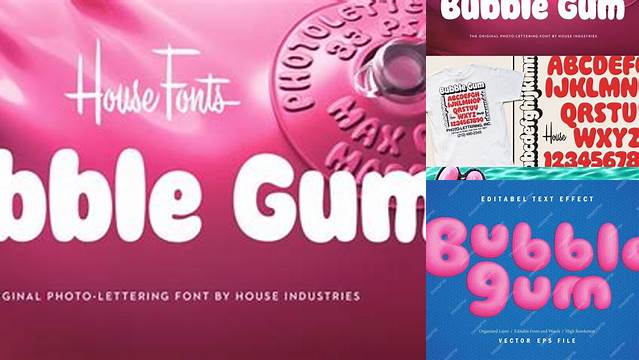
Hey guys! Ever stumbled upon a font that just screams fun and nostalgia? Well, let me introduce you to the Plinc Bubble Gum font! It's like a time machine back to your childhood, filled with sugary sweetness and playful vibes. In this guide, we'll dive into everything you need to know about this awesome font, including where to snag it for free and how to use it in your projects. Let's get this show on the road!
What is Plinc Bubble Gum Regular Font?
The Plinc Bubble Gum Regular font is a typeface that brings a unique blend of playfulness and nostalgia to the world of typography. Designed to evoke the carefree spirit of childhood, this font is characterized by its rounded edges, soft curves, and an overall bubbly appearance, making it perfect for projects that aim to capture a lighthearted and whimsical feel. Its design elements draw inspiration from the classic bubble gum packaging and retro advertising, creating a visual experience that is both familiar and engaging. The font's inherent charm lies in its ability to transform any text into a visually appealing element, whether it's for branding, advertising, or creative design projects. It stands out for its ability to add a touch of fun and levity, making it an excellent choice for designers looking to inject personality and character into their work. When used effectively, the Plinc Bubble Gum Regular font can serve as a powerful tool to create memorable and impactful designs that resonate with a wide audience.
History and Origin of Plinc Fonts
The history and origin of Plinc fonts are rooted in the innovative spirit of the Photo-Lettering, Inc. (PLINC) company, which was a significant force in the world of typography and graphic design during the mid-20th century. Founded in the 1930s, PLINC revolutionized the way fonts were accessed and utilized by designers, offering an extensive library of typefaces that catered to a wide range of aesthetic preferences and project requirements. PLINC distinguished itself by not only curating an impressive collection of existing fonts but also by commissioning original designs from talented typographers and artists. This commitment to innovation and creativity led to the development of numerous iconic typefaces that have left a lasting impact on the design industry. The company's approach to typography was marked by a deep understanding of visual communication and a desire to push the boundaries of what was possible with type. By providing designers with access to a diverse and high-quality selection of fonts, PLINC played a crucial role in shaping the visual landscape of advertising, branding, and print media. The legacy of PLINC continues to inspire and influence contemporary designers, serving as a reminder of the power of typography to enhance and transform visual communication.
Key Features of the Bubble Gum Font
The key features of the Bubble Gum font are what make it stand out in the crowded world of typography. Its rounded terminals give each letter a soft, approachable feel, reminiscent of the gooey texture of bubble gum. The uniform stroke weight ensures readability while maintaining a playful aesthetic. What truly sets this font apart is its ability to evoke a sense of nostalgia. It's like a visual time capsule, instantly transporting you back to the carefree days of childhood. Imagine bubble gum wrappers, vintage candy ads, and Saturday morning cartoons – that's the essence of the Bubble Gum font. Its unique design isn't just about aesthetics; it's about creating an emotional connection with the viewer. Whether you're designing a logo for a children's brand or crafting a retro-themed poster, this font adds a touch of whimsy and authenticity. It's a versatile choice that can be used in various contexts, from digital designs to print materials, making it a valuable asset for any designer looking to add a playful touch to their projects. The Bubble Gum font isn't just a typeface; it's a statement, a mood, and a memory all rolled into one delightful package.
Using Plinc Bubble Gum in Graphic Design
Using the Plinc Bubble Gum font in graphic design can add a playful and nostalgic touch to your projects. This font is particularly well-suited for designs that aim to evoke a sense of fun, childhood memories, or retro aesthetics. When incorporating the Plinc Bubble Gum font into your designs, consider the overall tone and message you want to convey. This font works well for projects related to children's products, candy stores, birthday invitations, and vintage-themed designs. However, it may not be the best choice for more serious or professional contexts. Experiment with different font sizes, colors, and spacing to achieve the desired visual effect. Pair the Plinc Bubble Gum font with complementary fonts that balance its playful nature. For example, you could use a clean and simple sans-serif font for body text to ensure readability. Additionally, consider using the font in combination with other design elements that enhance its retro or whimsical feel, such as vintage illustrations, bright colors, and playful patterns. By carefully considering these factors, you can effectively use the Plinc Bubble Gum font to create eye-catching and memorable designs that resonate with your target audience.
Best Font Pairings for Bubble Gum Regular
Finding the best font pairings for Bubble Gum Regular can elevate your design projects, creating a harmonious and visually appealing composition. Given its playful and whimsical nature, pairing Bubble Gum Regular with fonts that offer contrast and balance is key. A classic choice is to combine it with a clean, sans-serif font like Open Sans or Lato for body text. These fonts provide excellent readability and won't compete with the Bubble Gum Regular's unique character. Another great option is to pair it with a simple serif font such as Roboto Slab or Merriweather. These fonts add a touch of sophistication while still complementing the playful vibe of Bubble Gum Regular. When choosing font pairings, consider the overall tone and message of your design. If you're aiming for a retro or vintage feel, try pairing Bubble Gum Regular with a script font like Pacifico or Lobster. However, be cautious not to overuse script fonts, as they can be difficult to read in large blocks of text. Experiment with different font combinations and see what works best for your specific project. Remember, the goal is to create a balanced and visually appealing design that effectively communicates your message.